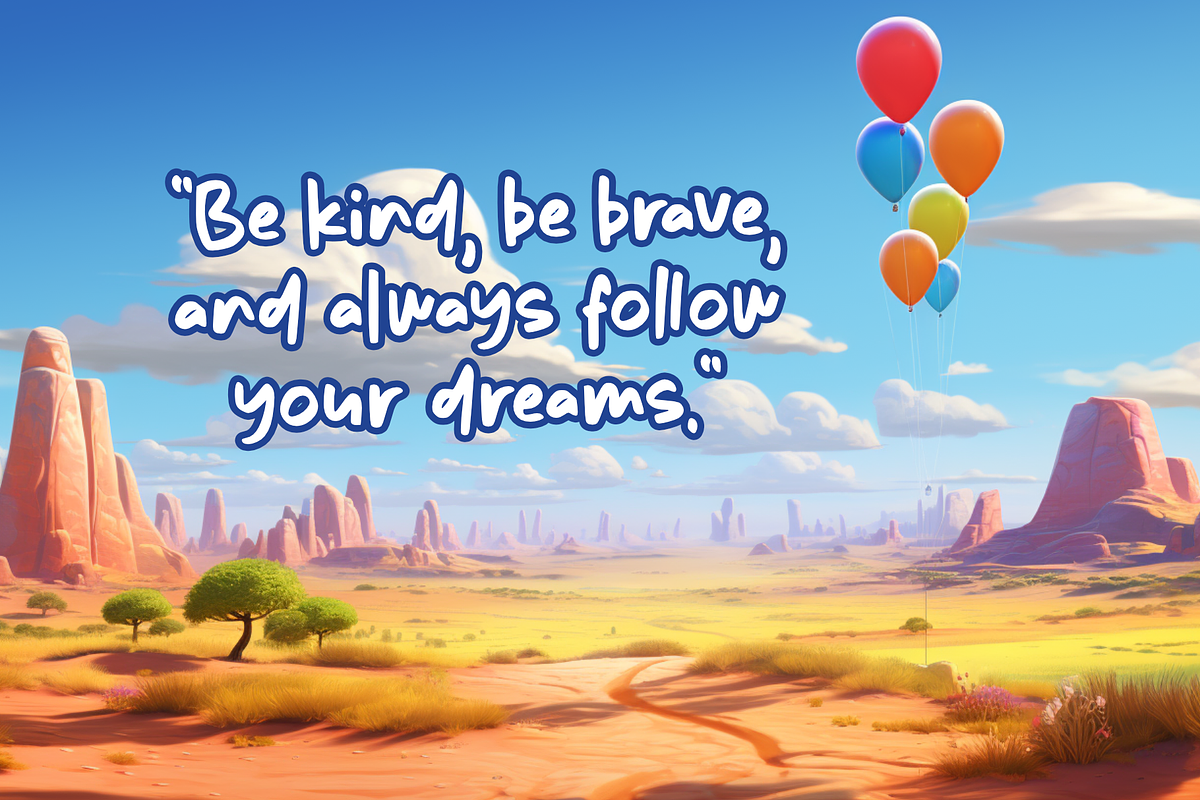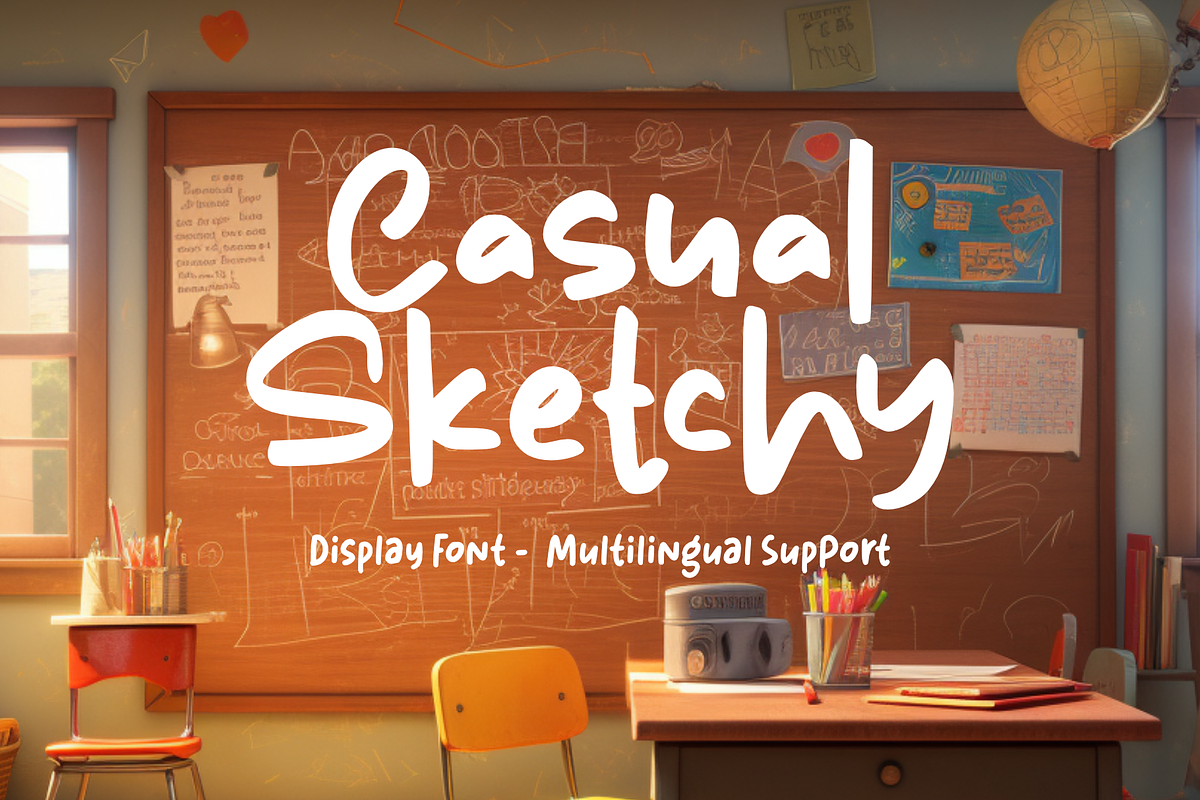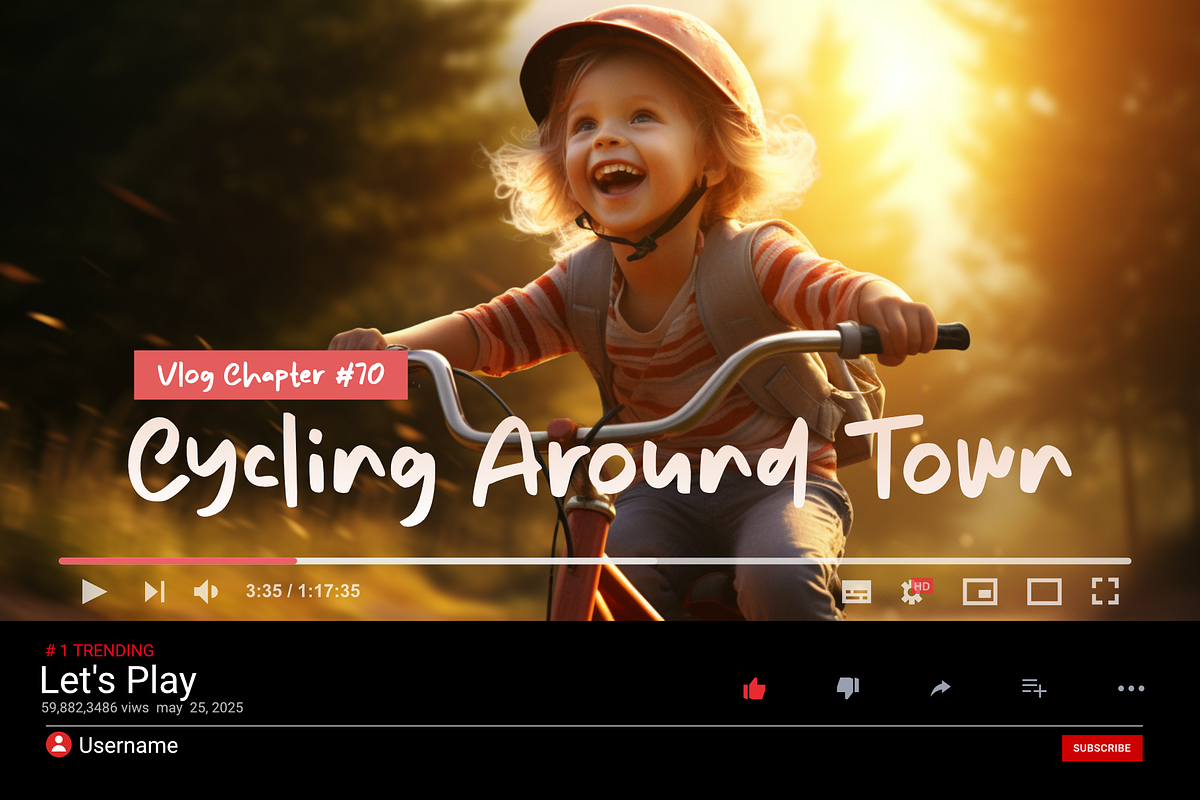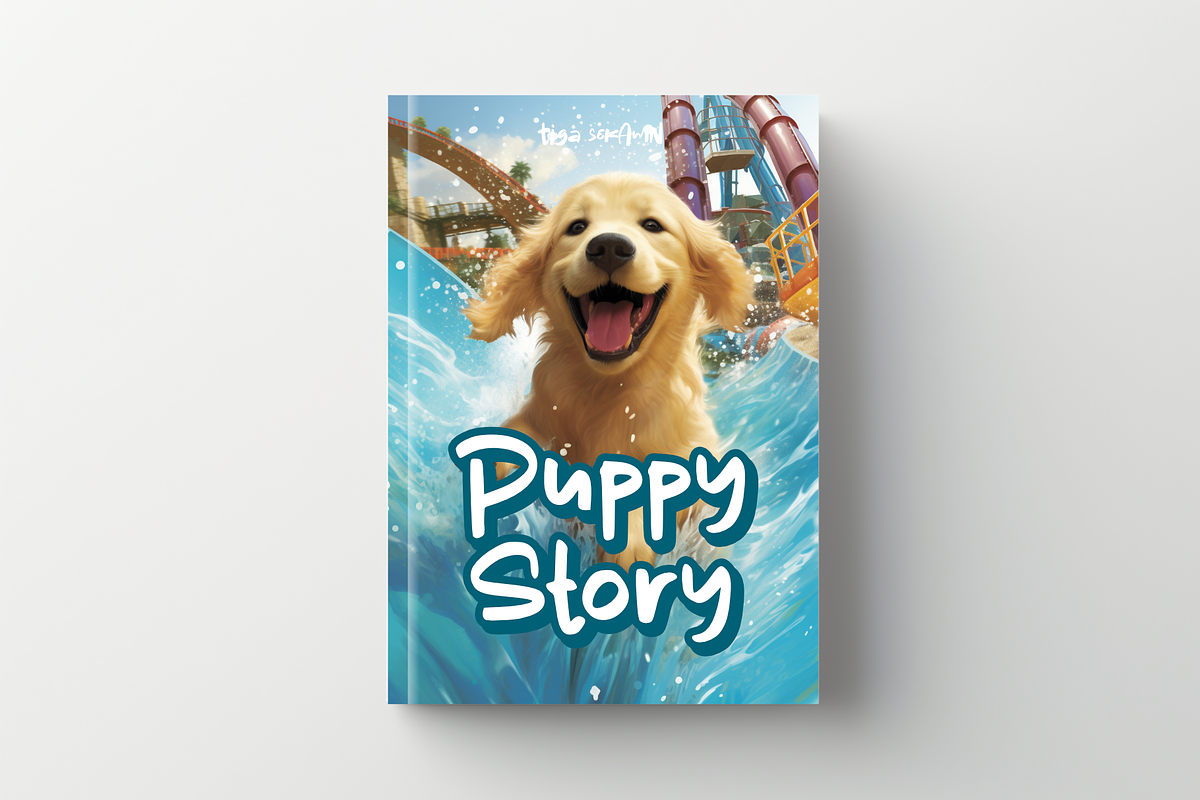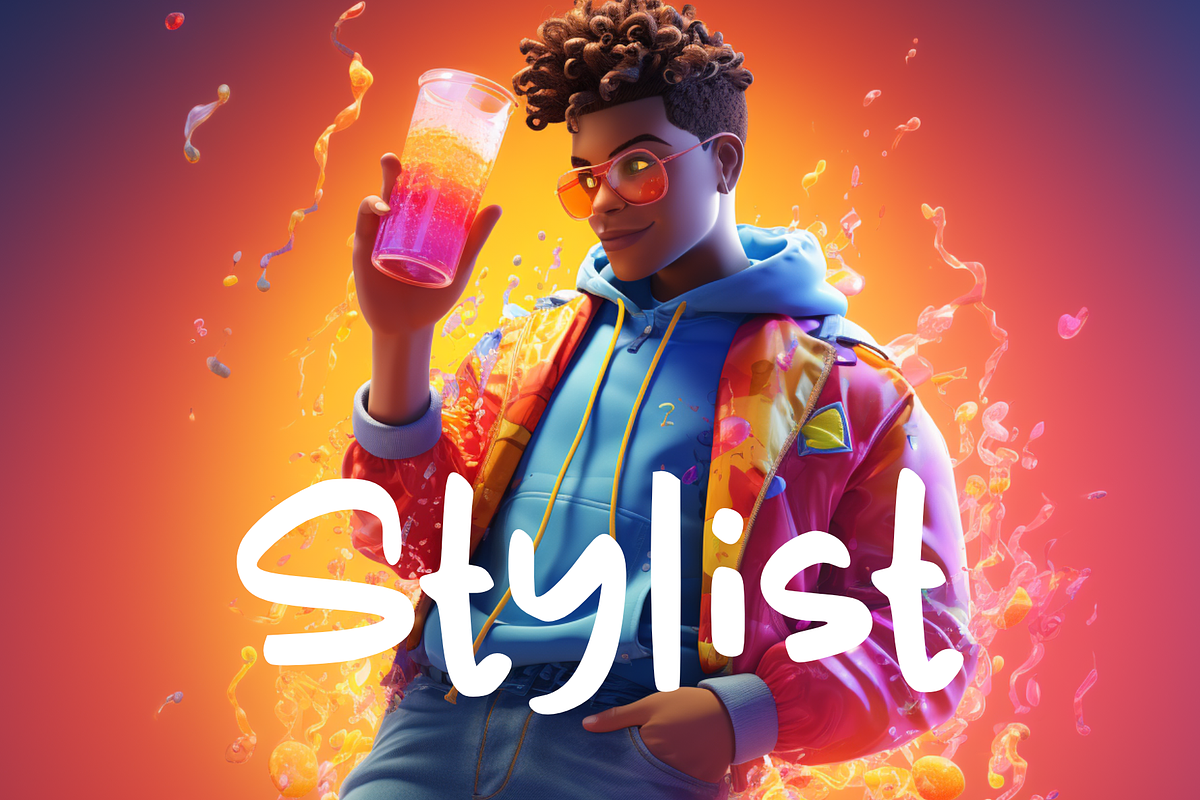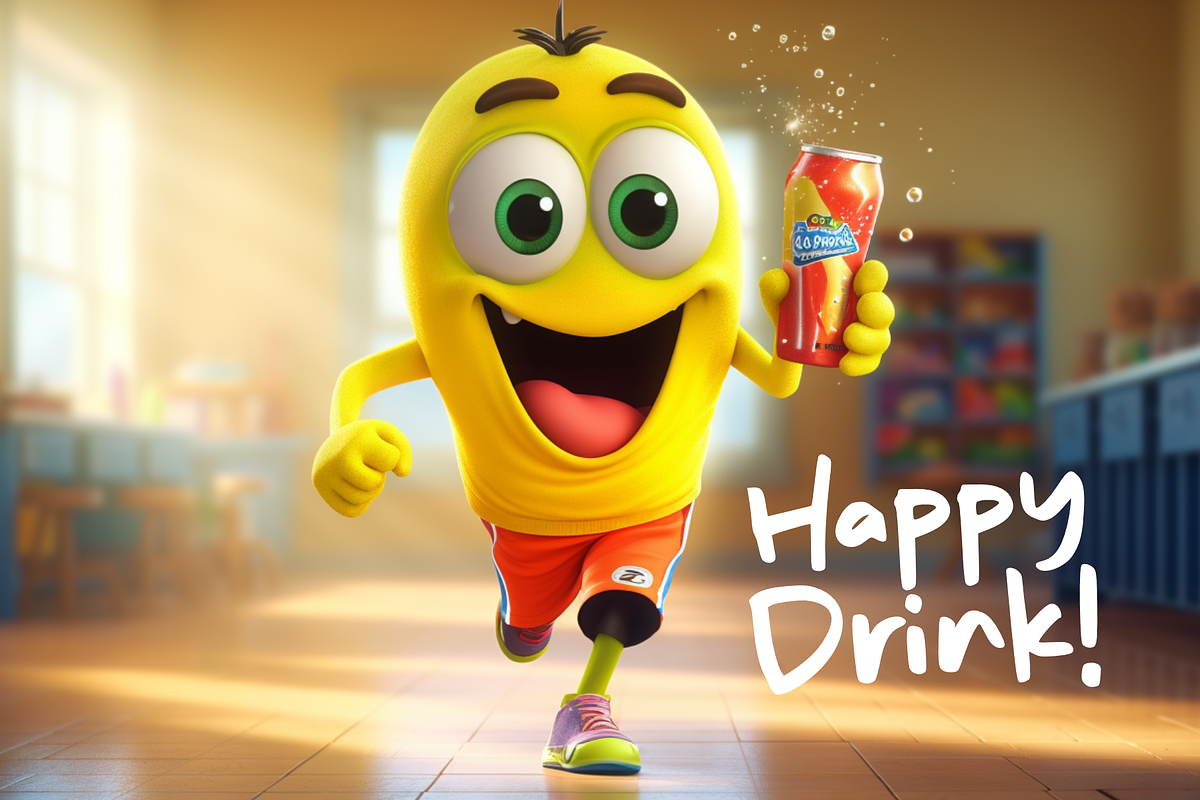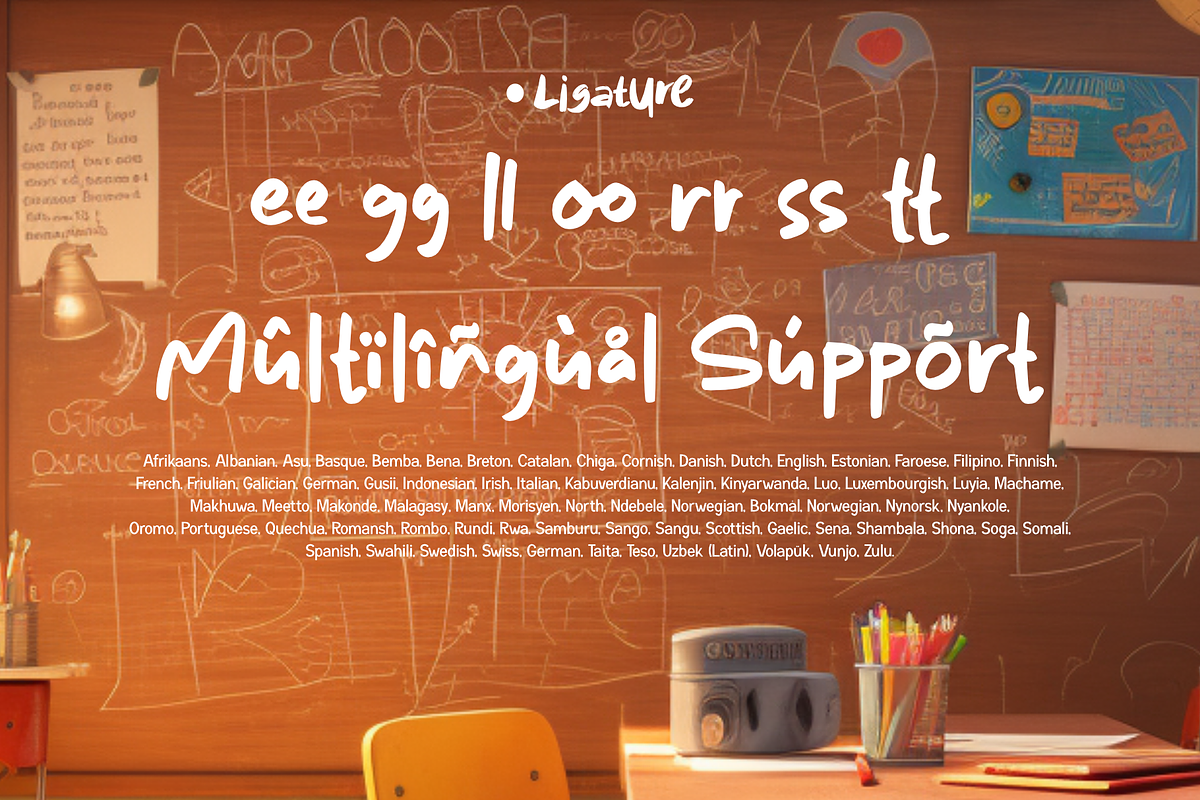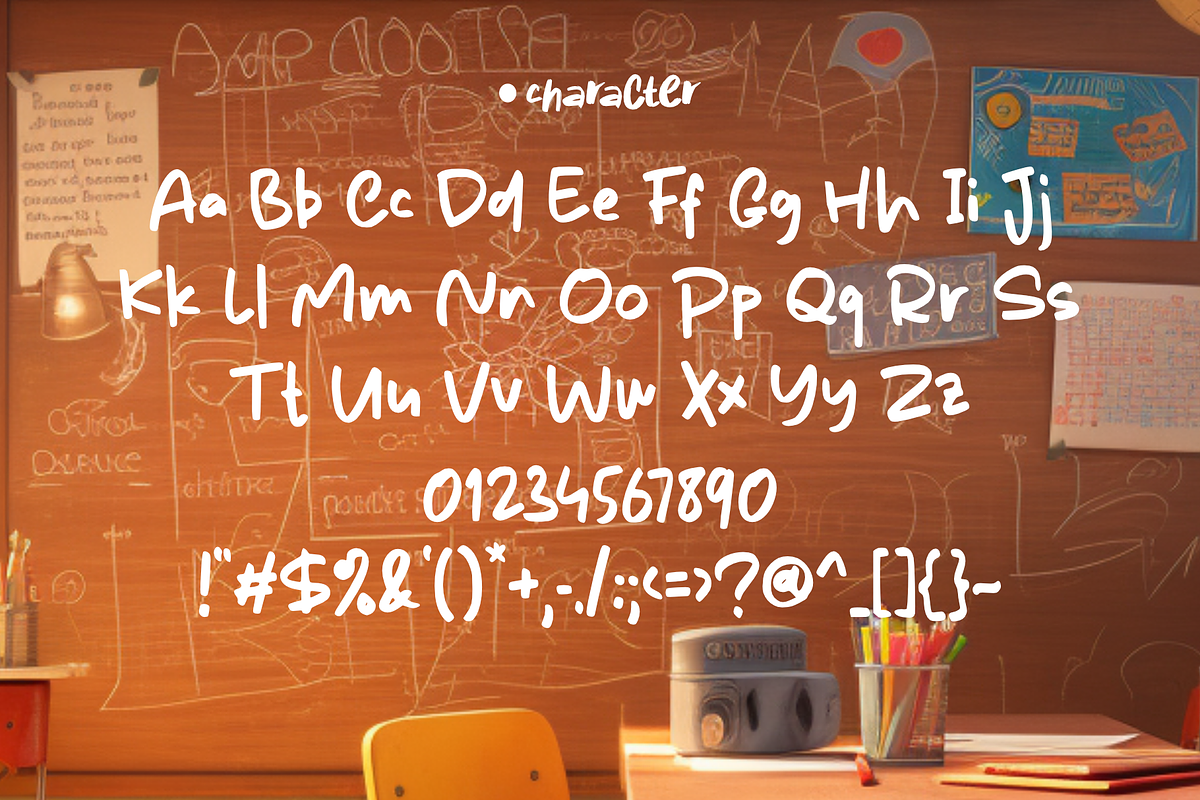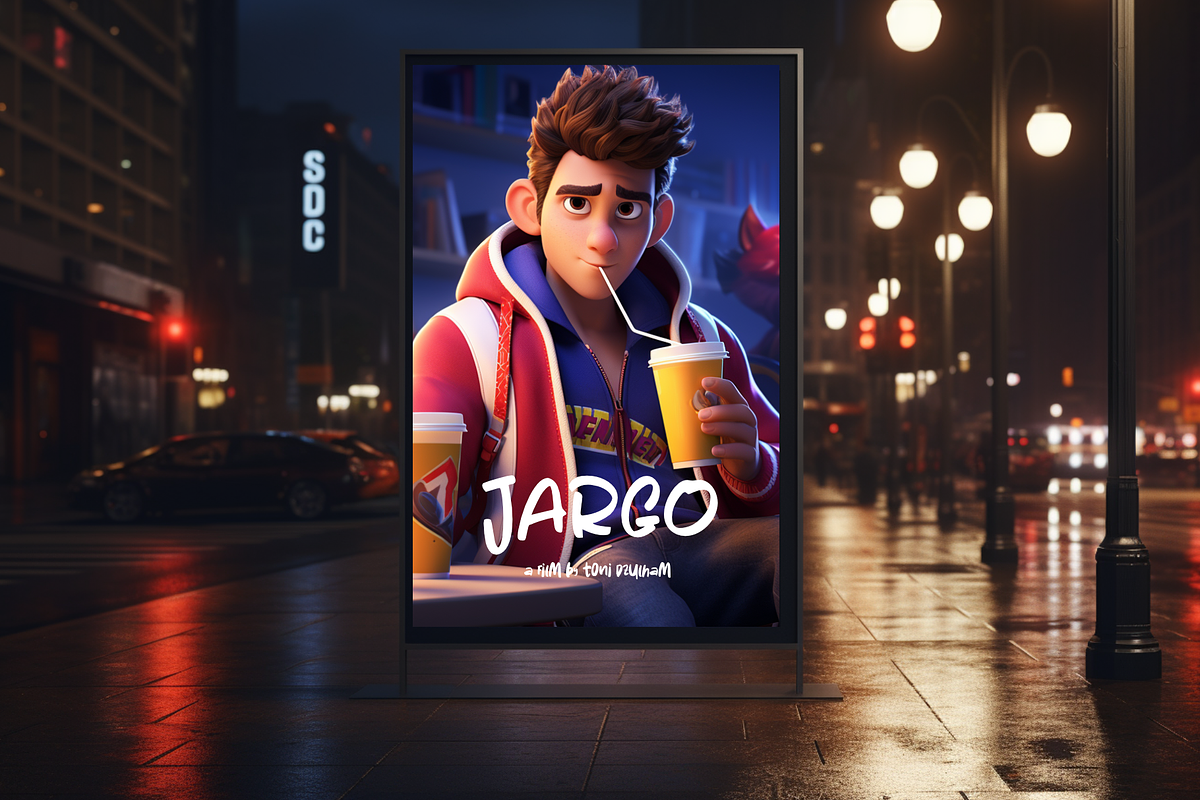
Casual Sketchy - Display
Casual Sketchy is a font designed specifically to create a relaxed, friendly, and less formal design atmosphere. This font embraces a hand-drawn style that resembles rough sketches or doodles, conveying a charming sense of spontaneity. With slightly uneven letterforms, scratchy lines, and sporadic variations in thickness, Casual Sketchy showcases a unique and unplanned character.
Casual Sketchy font exudes a casual and friendly vibe. In the usage of words and sentences, the font emphasizes a casual and warm handwritten style, making it suitable for designs that aim to establish an emotional connection with the audience. This font is often used in poster designs, greeting cards, web design, or social media to create a familiar impression and invite relaxed interaction.
the use of Casual Sketchy font adds a humanistic touch to designs. With its non-uniform characters and slightly imperfect edges, the font conveys a more approachable attitude and embraces imperfections. Casual Sketchy font offers flexibility in expressing messages in a freer manner, adding warmth and cheerfulness to relaxed design communication.
- Multilingual Accent